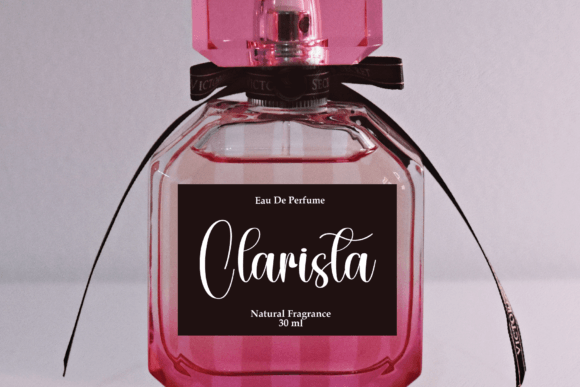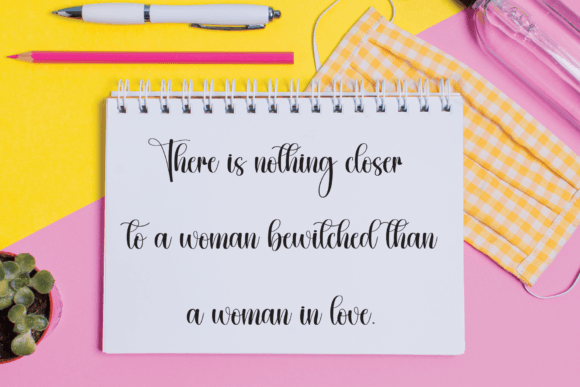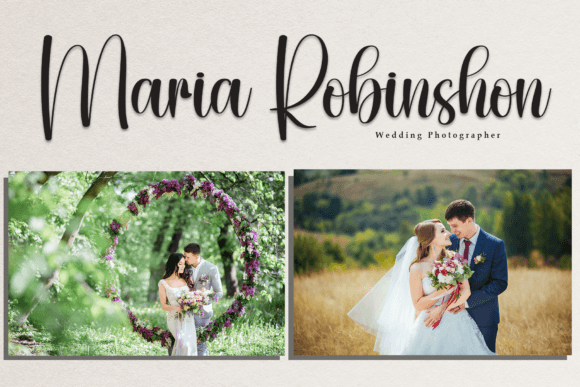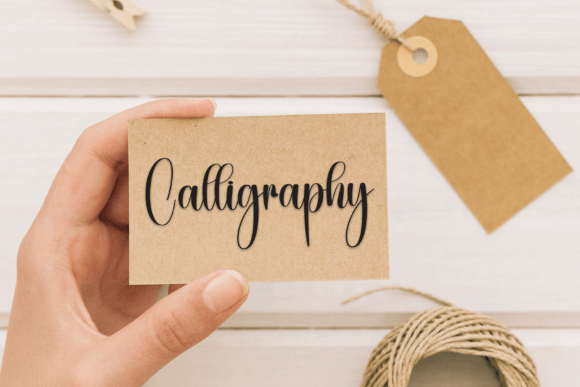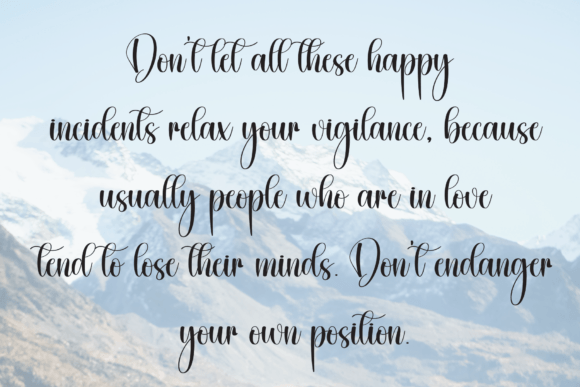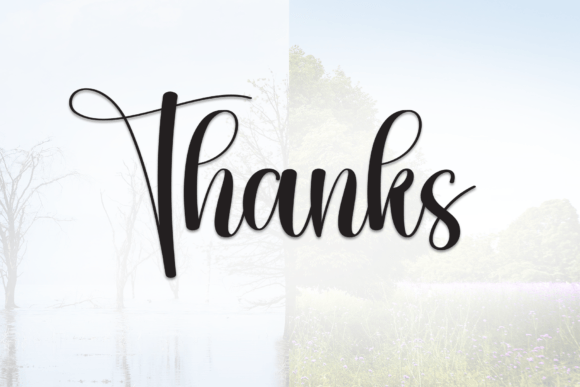
Adding a Touch of Elegance to Your Designs
As designers, we’ve all been there – staring at a blank canvas, searching for the perfect font to bring our vision to life. It’s that moment when everything clicks, and the words start flowing. You know exactly what you want, but finding the right font can be a challenge. That’s where Change Font comes in – a stylish and elegant script font that adds a handwritten touch to any design.
This versatile font is perfect for a wide range of applications, from wedding invitations and thank you cards to quotes and business cards. Its beauty lies in its simplicity, making it a valuable asset for designers who want to add a touch of sophistication to their work. With Change Font, you can take your designs to the next level and create something truly special.